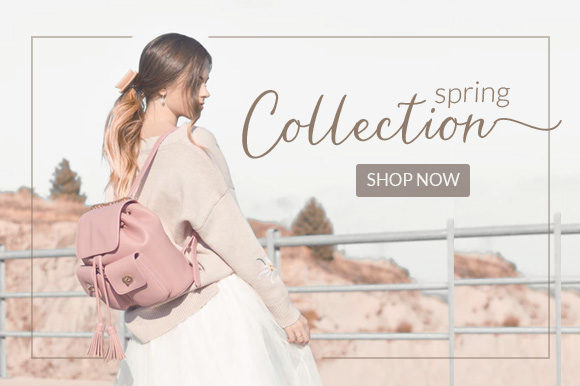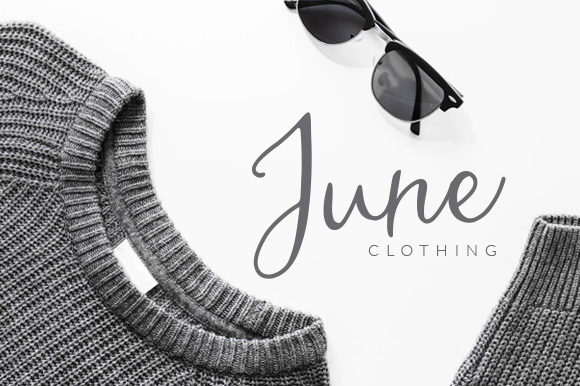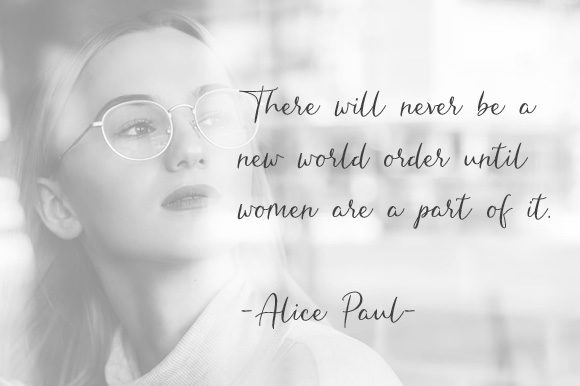
Introduction to Hungaria Font
The Hungaria is a beautiful script font which was carefully created for beauty brands.
It can also be used for every designs which needs a feminine and elegant touch .
Key Features of Hungaria Font
Why Choose Hungaria Font?
Hungaria Font offers exceptional quality and versatility, making it a valuable addition to your design toolkit. Whether you’re creating for personal projects or commercial use, Hungaria Font delivers professional results.